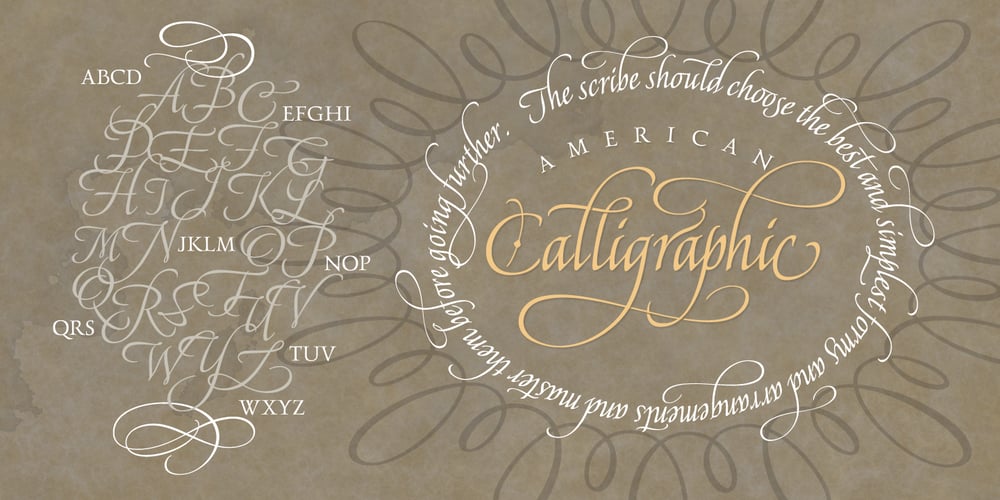
American Calligraphic
American Calligraphic font
American Calligraphic Font Family was designed by Rob Leuschke and published by TypeSETit. American Calligraphic contains 5 styles and family package options. In recent years with the popularity of hand written brush styles, there seems to be a relaxation of more formal calligraphic letterforms. Traditional calligraphy has always been a love of mine. American Calligraphic brings the look of hand written italic forms right to your fingertips. Get more customization with the free flowing forms that brings life to your formal designs. Whether you create greeting cards, invitations or simply want to announce a special event in your life, American Calligraphic gives you powerful options when the numerous alternate letterforms are used.